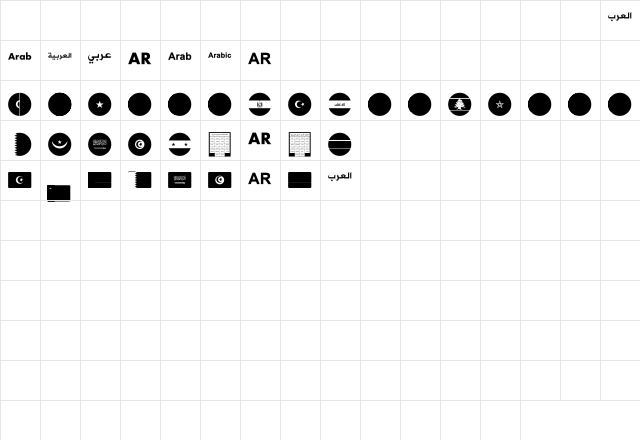
font arabic flags Regular
Design Context for font arabic flags Typeface
font arabic flags takes a measured approach to typography — its balanced proportions and neutral character make it a reliable workhorse for both digital and print work.